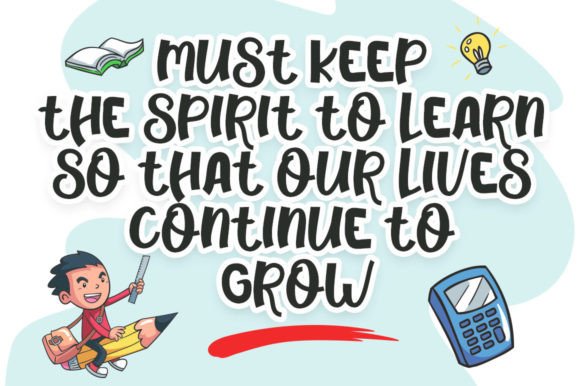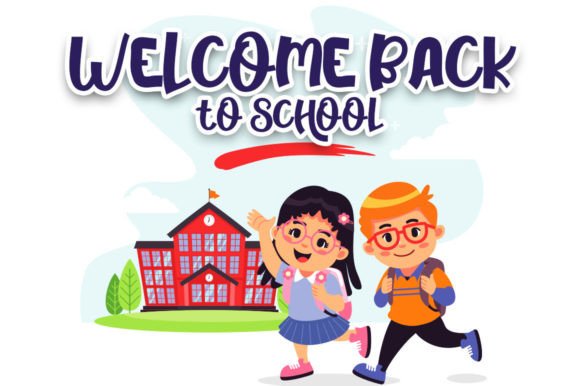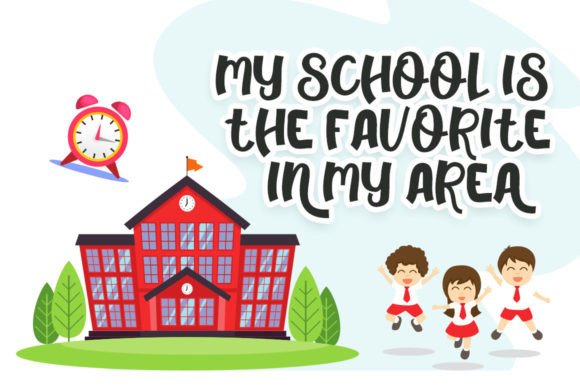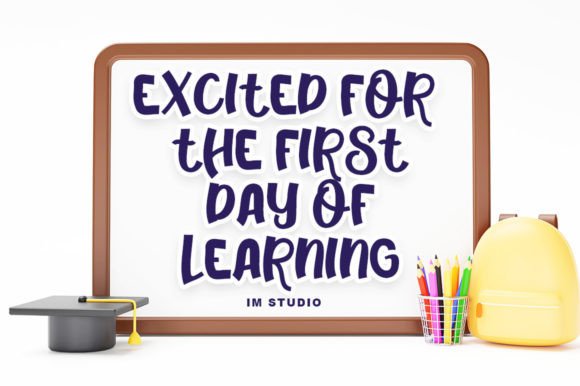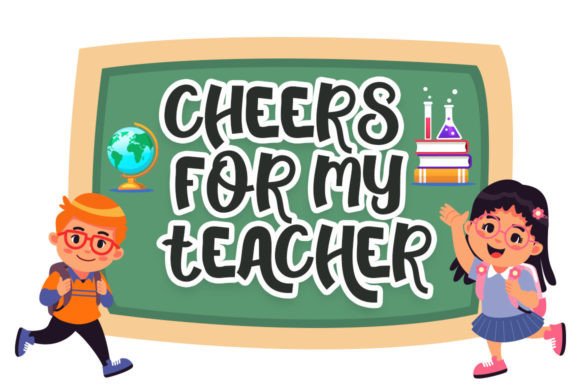
About Back to School Font
“Back To School” emerges as a chic and quirky handwritten font, meticulously crafted with a touch of creativity. This font is more than just a typographic choice; it’s a design tool that can transform any creative idea into a true piece of art. Whether you’re seeking fonts for Instagram posts, DIY projects, or any other creative endeavor, “Back To School” offers a unique and stylish solution.
The chic and quirky qualities of “Back To School” make it stand out in the realm of handwritten fonts. The carefully crafted letterforms add a touch of creativity and playfulness, giving your designs a distinctive and memorable character.
For those seeking fonts for Instagram, “Back To School” becomes a stylish option to enhance your social media presence. Its chic aesthetic can elevate your posts, making them visually appealing and engaging. Whether you’re sharing quotes, announcements, or creative content, this font adds a touch of personality.
In the realm of DIY projects, “Back To School” becomes a valuable asset for creators and crafters. Its quirky handwritten style can bring a sense of handmade charm to various projects, from greeting cards and posters to personalized gifts and scrapbooking.
The font’s versatility allows it to adapt to different design purposes. Whether you’re working on invitations, posters, or any creative piece, “Back To School” transforms ordinary text into a visual element that captures attention and communicates a sense of style.
“Back To School” isn’t just a font; it’s a creative ally that injects a dose of chic and quirky charm into your designs. Its handwritten nature adds a personal touch to your projects, making them feel uniquely crafted and expressive.
In essence, “Back To School” is a testament to the idea that fonts go beyond mere letters; they are tools for expressing creativity and individuality. Whether you’re a social media enthusiast, a DIY enthusiast, or a designer looking to add a playful touch to your creations, let “Back To School” be the font that turns your creative ideas into true pieces of art.